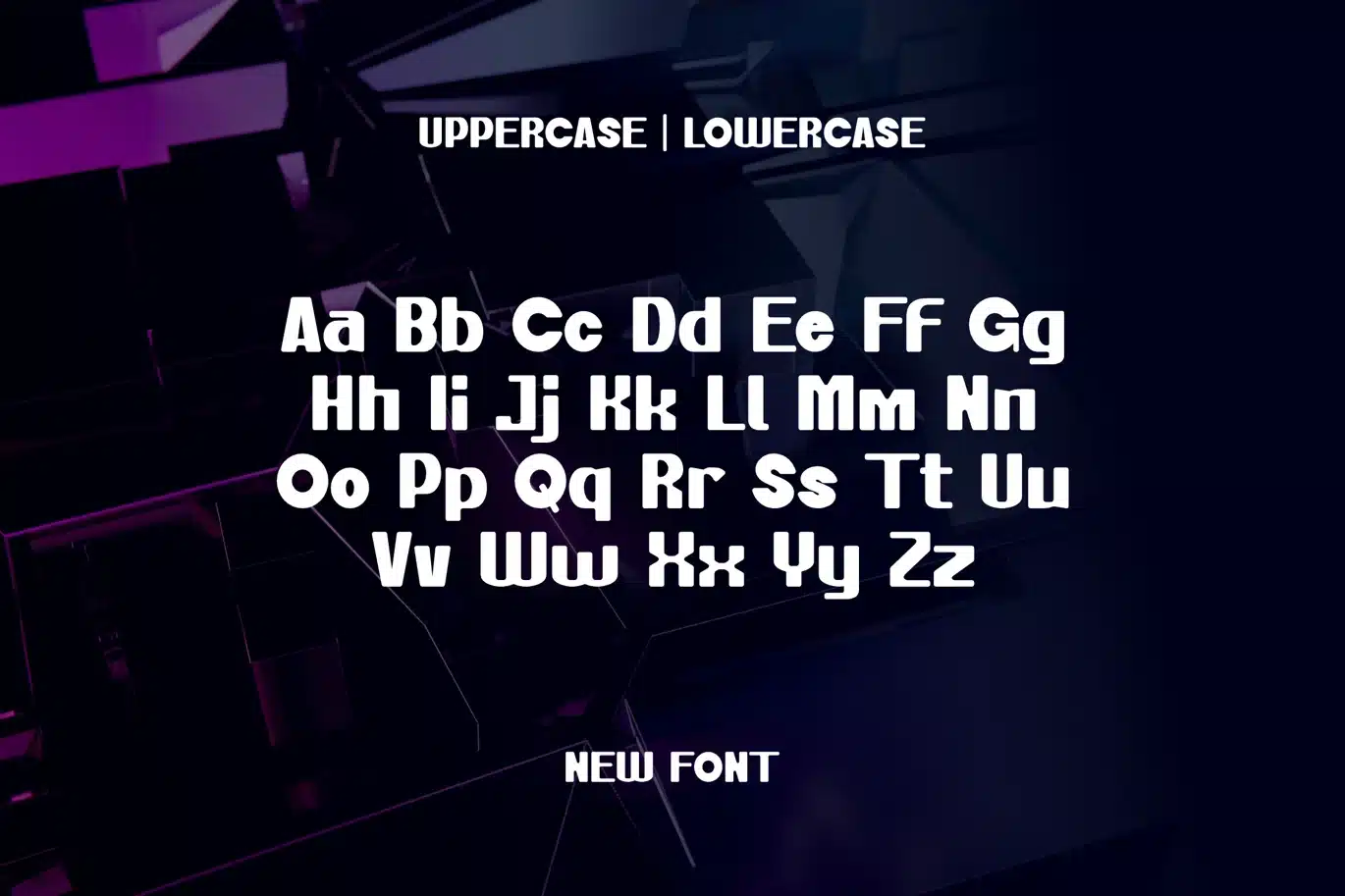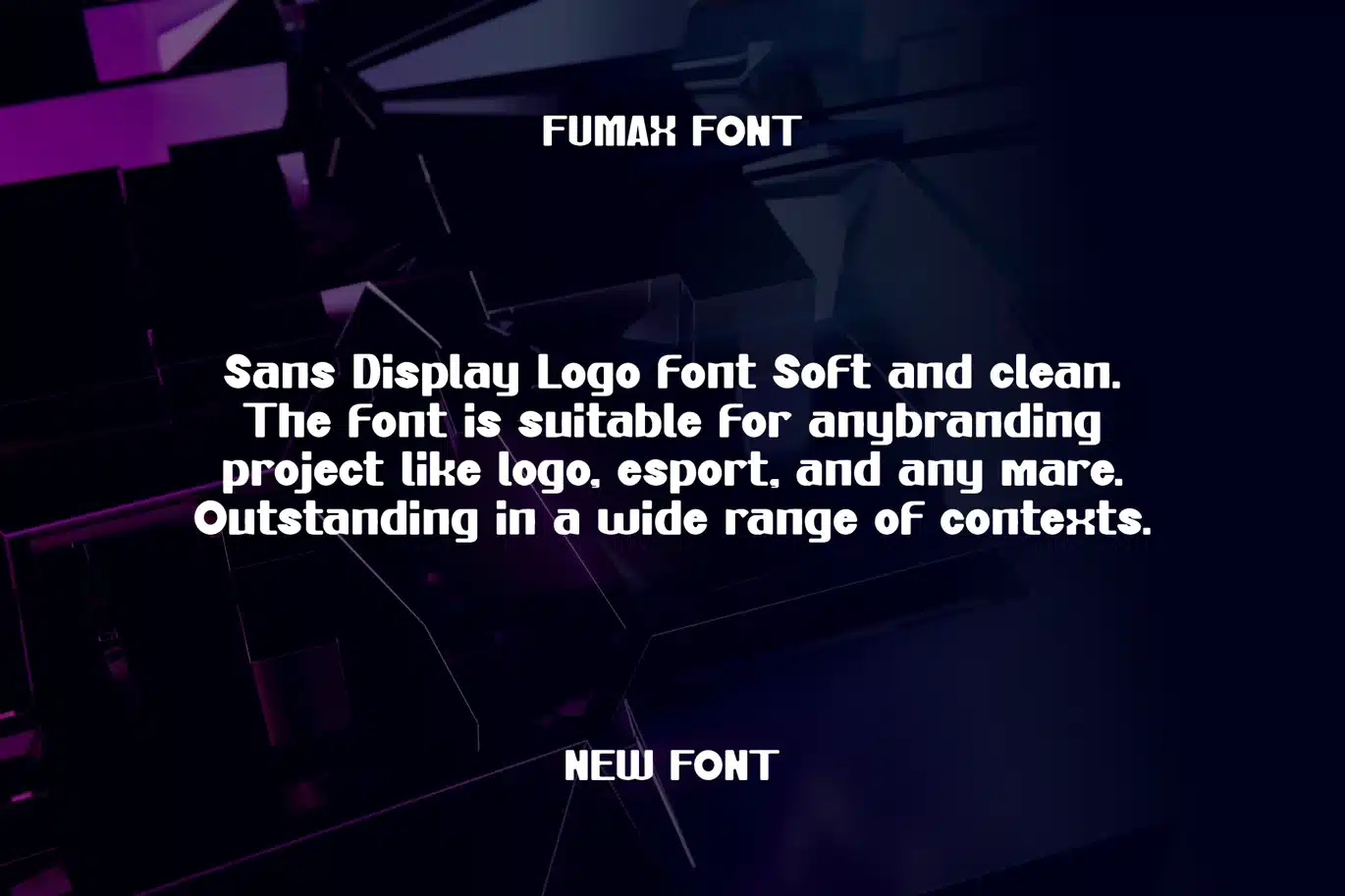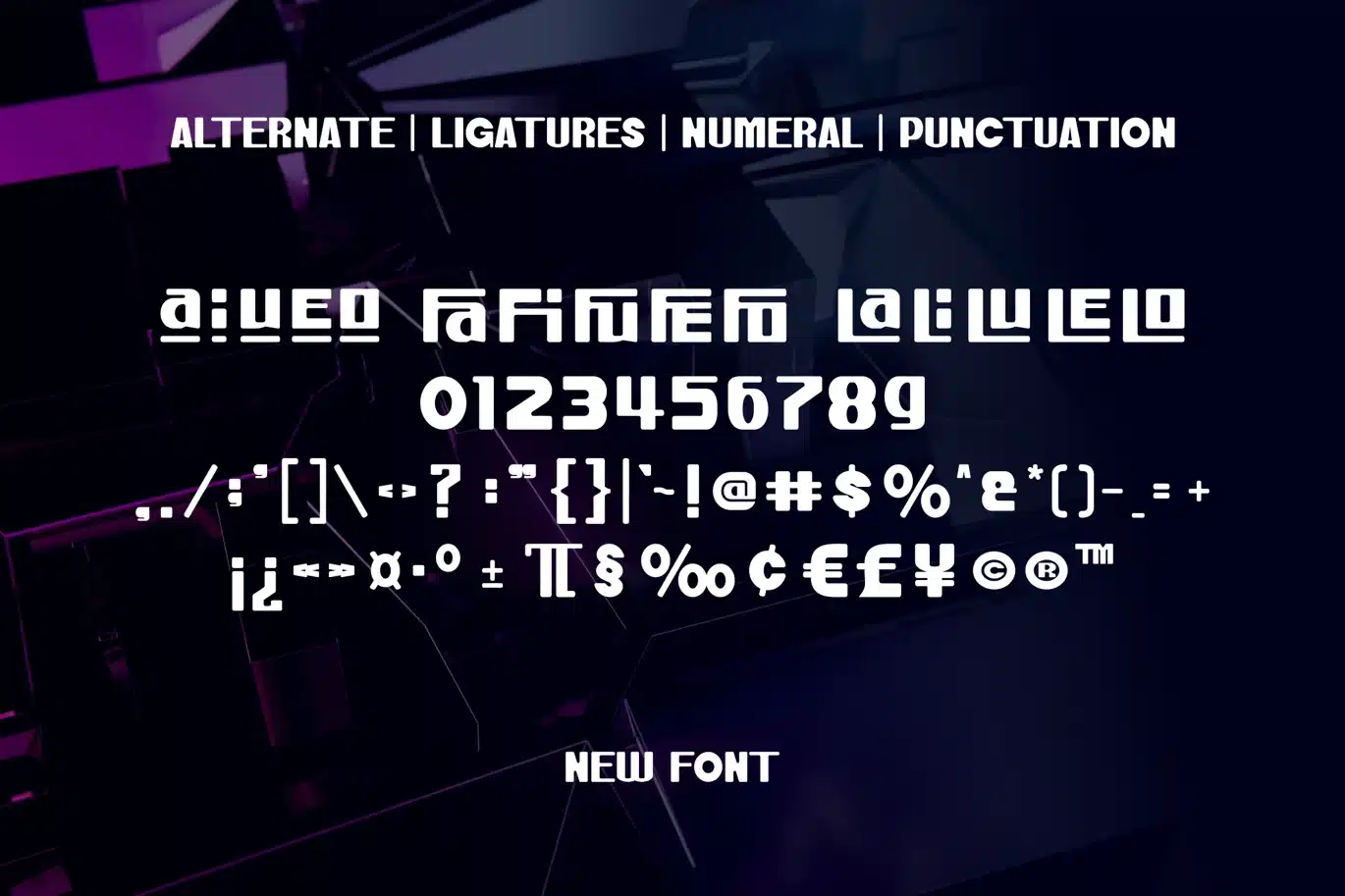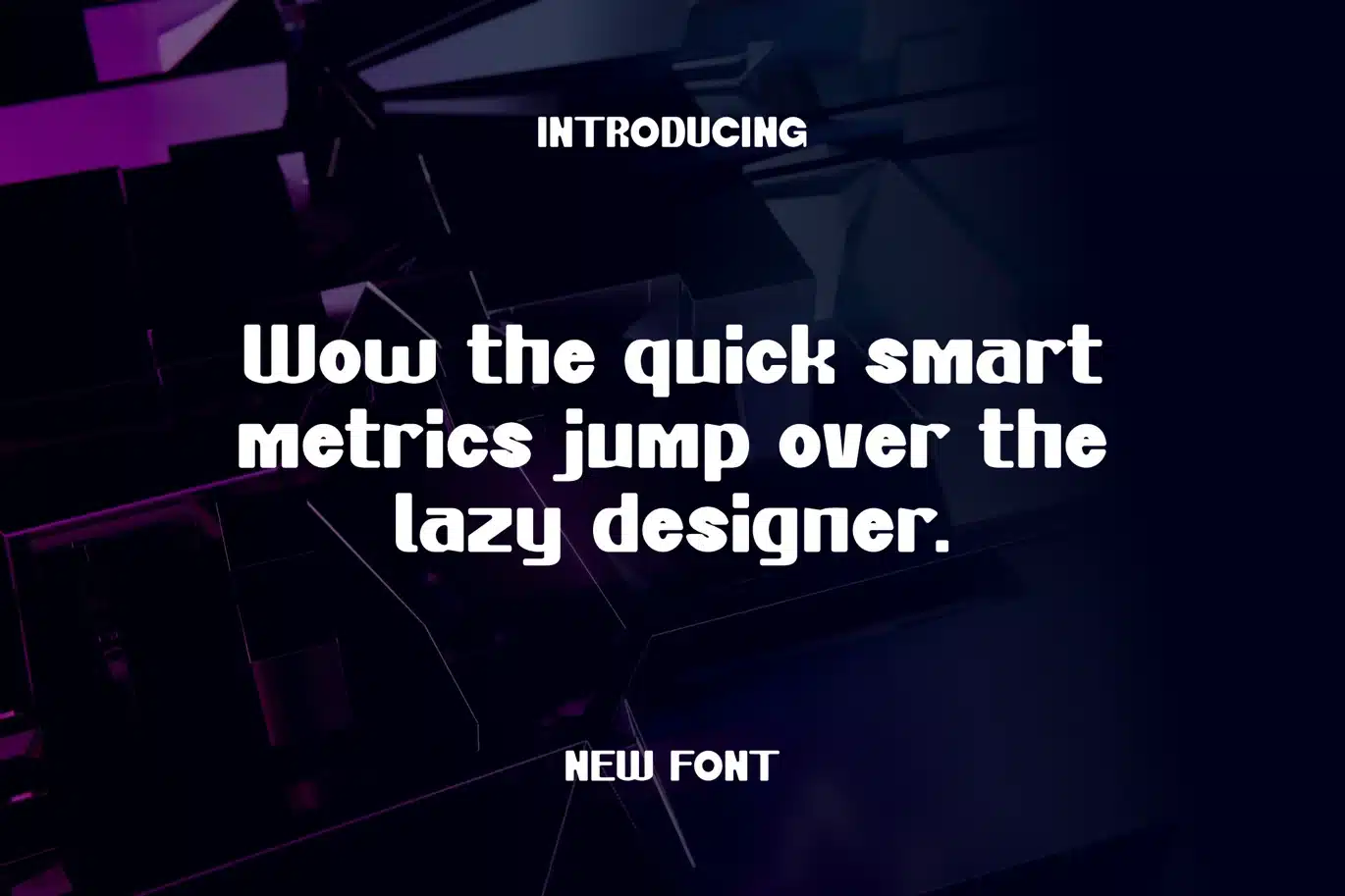
Fumax – Sans Display & Logo Font
Fumax is a super thick typeface with more traditional letter shapes, making it perfect for creating (or recreating) the concise look of film poster production credits.
Feature :
- Uppercase Characters
- Lowercase Characters
- Alternate Characters
- Ligature Characters
- Punctuation & Numbers